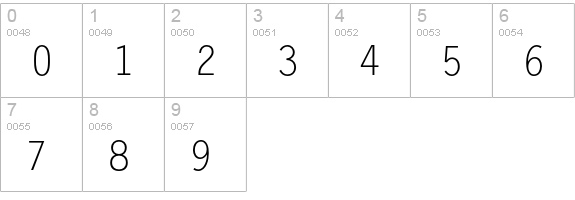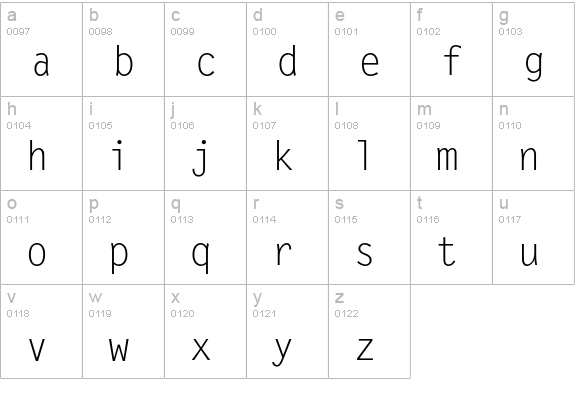
Letter Gothic Std Medium is a balanced, medium-weight variant in the Letter typeface family \xE2\x80\x94 well suited to sub-headlines, navigation, and balanced editorial work.
Letter Gothic Std Medium is a versatile and reliable font that exudes a sense of professionalism and clarity. Its clean and crisp design makes it perfect for a wide range of purposes, from print materials to digital platforms. With its medium weight, this font strikes the ideal balance between being bold enough to command attention and light enough to maintain readability. One of the most appealing aspects of Letter Gothic Std Medium is that it is freely available to download at FontsMarket.com. This means that anyone can access this exceptional font without any cost, making it an excellent choice for budget-conscious individuals and businesses. Whether you are a graphic designer, a content creator, or simply someone looking to enhance their written communication, Letter Gothic Std Medium has got you covered. The precise letterforms and consistent spacing of this font ensure that every character is distinct and legible, even at smaller sizes. This makes Letter Gothic Std Medium a practical option for body text, where clarity is paramount. Additionally, the font's uniformity and simplicity make it an excellent choice for headlines, titles, and headings, allowing them to stand out without overpowering the overall design. Letter Gothic Std Medium's timeless and straightforward aesthetic lends itself well to a wide variety of applications. From corporate documents and business correspondence to website design and advertising materials, this font can effortlessly adapt to any project, adding a touch of professionalism and sophistication. Its versatility makes it a reliable choice for both print and digital media, ensuring consistency across different platforms. In conclusion, Letter Gothic Std Medium is a high-quality font that combines functionality with style. Its medium weight strikes the perfect balance between being attention-grabbing and readable, making it suitable for a wide range of purposes. The fact that it is freely available to download at FontsMarket.com makes it an accessible choice for anyone in need of a reliable and visually appealing font. Whether you are a professional designer or an individual looking to enhance your written communication, Letter Gothic Std Medium is sure to meet your needs and exceed your expectations.